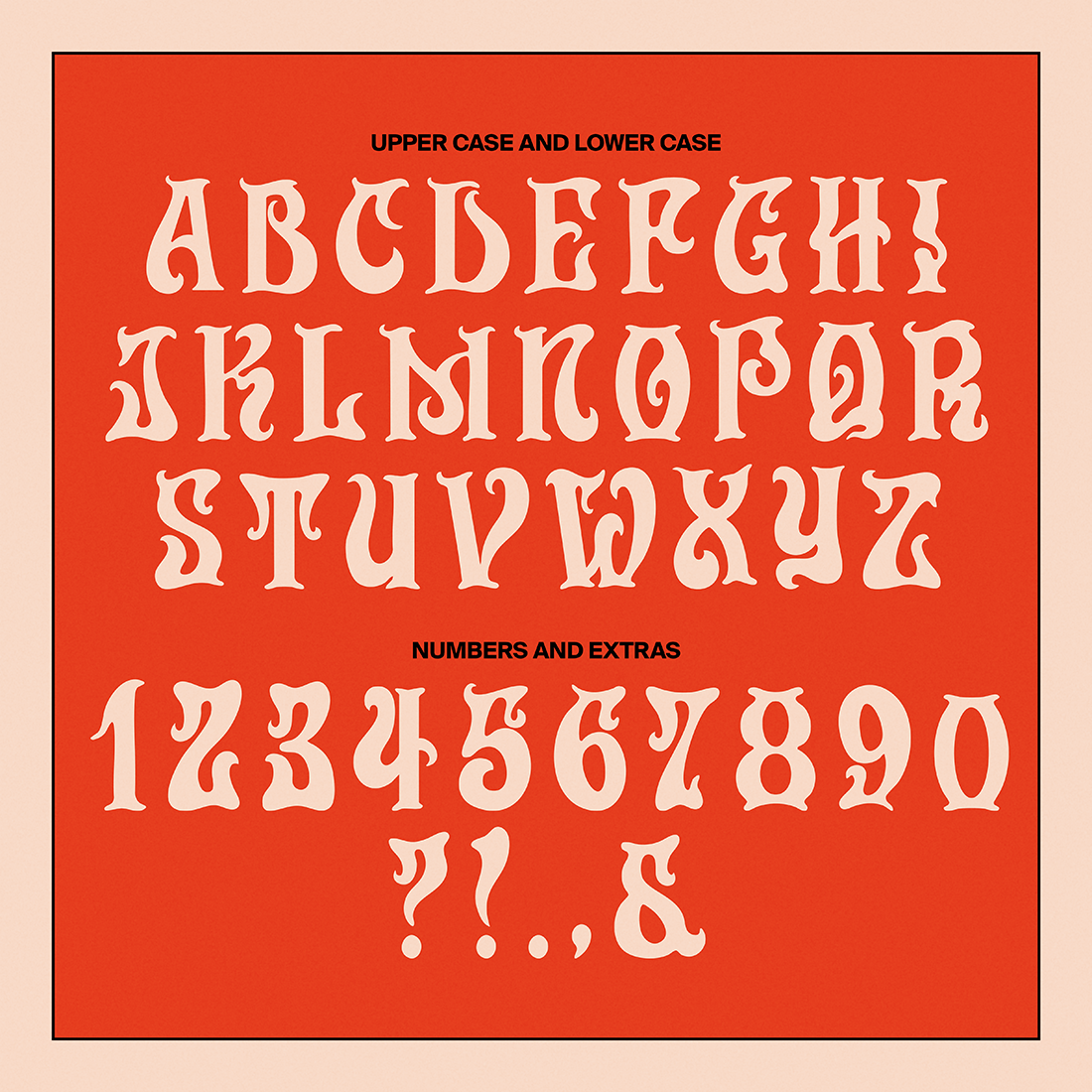
Inspired by the psychedelic lettering from the 60s and 70s this bold font was specifically crafted for use in merchandise and posters but is also great for many other applications. As a merch designer of 15+ years for the biggest music artists in the world I wanted to create something that ticked a few more boxes for my own work load. Sonderful was the font I've wanted and not had for the past few years and now I am offering it out to the world.
Full Alphabet
Numbers and essential symbols